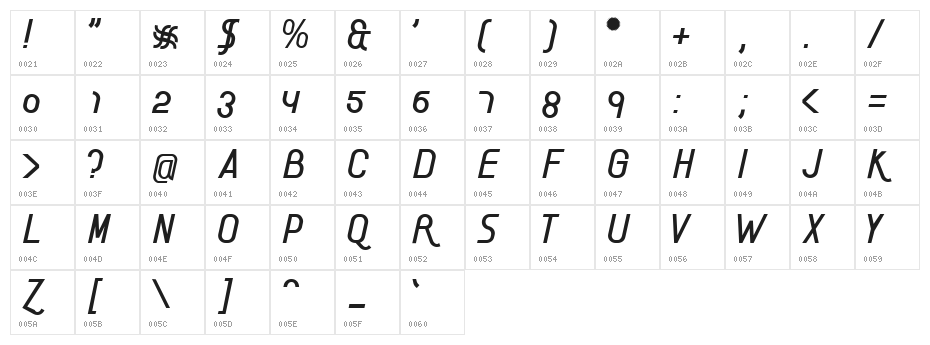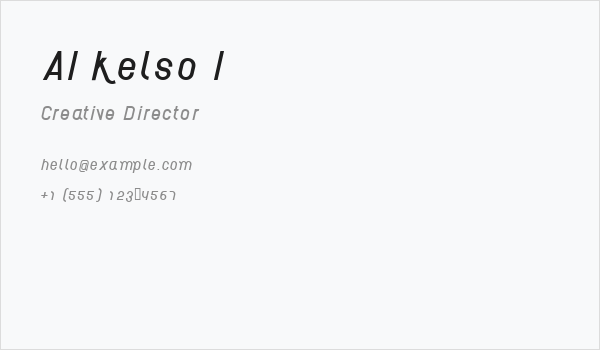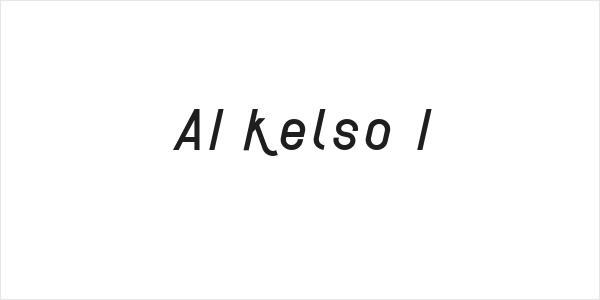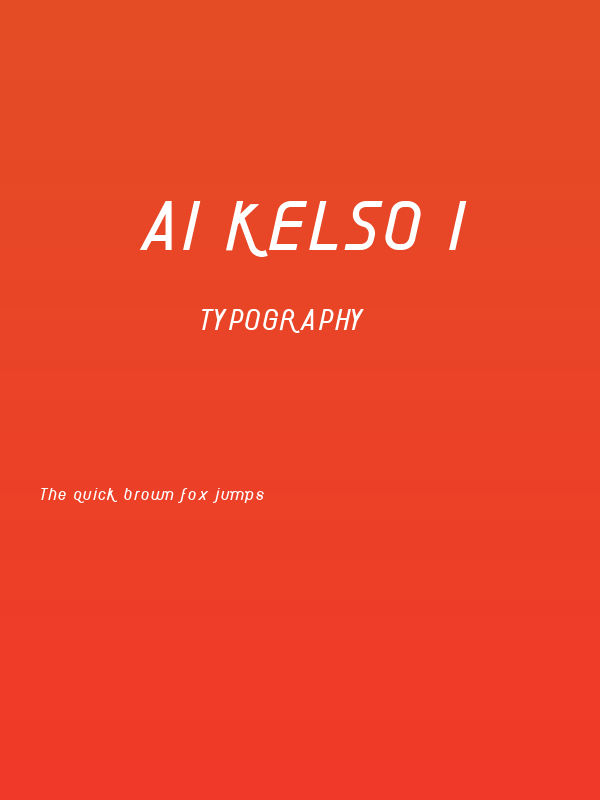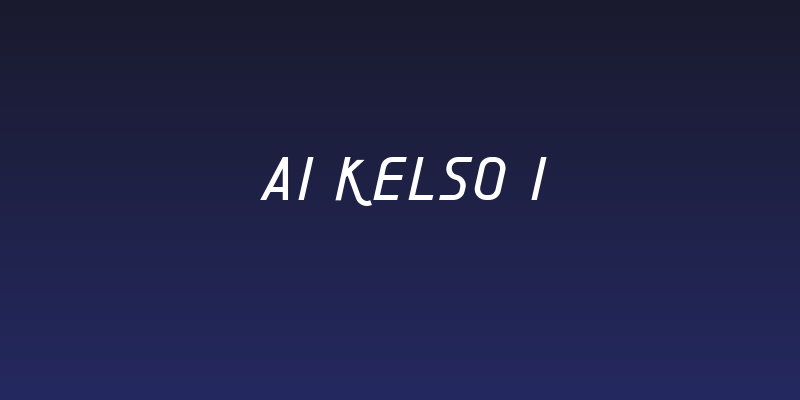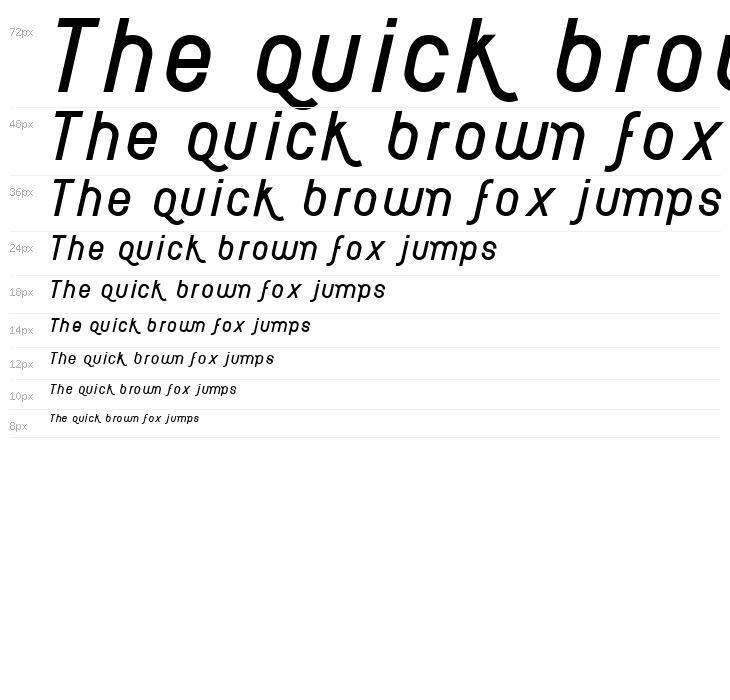
AI kelso I Font
AI kelso I Description
This font features a sleek, modern design with a slight slant, giving it an italicized appearance. The characters are clean and well-defined, with a consistent stroke width that maintains readability across various sizes. The uppercase letters are bold and commanding, while the lowercase letters maintain a harmonious balance with slightly rounded edges. Numerals are distinct and easy to read, complementing the overall style. Special characters are uniquely styled, adding a touch of personality without compromising legibility. This font is versatile, suitable for both digital and print media.
| Proposed Projects | Ideal for branding, advertising, digital media, and editorial design projects. |